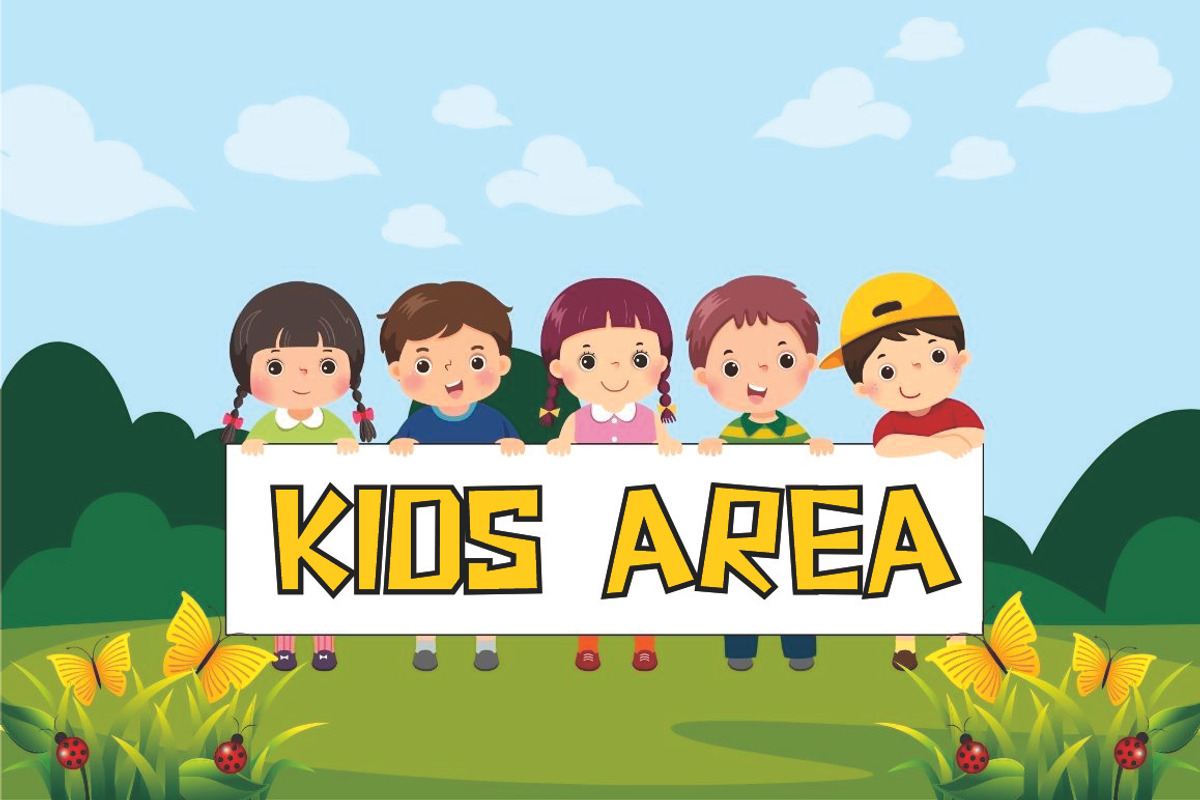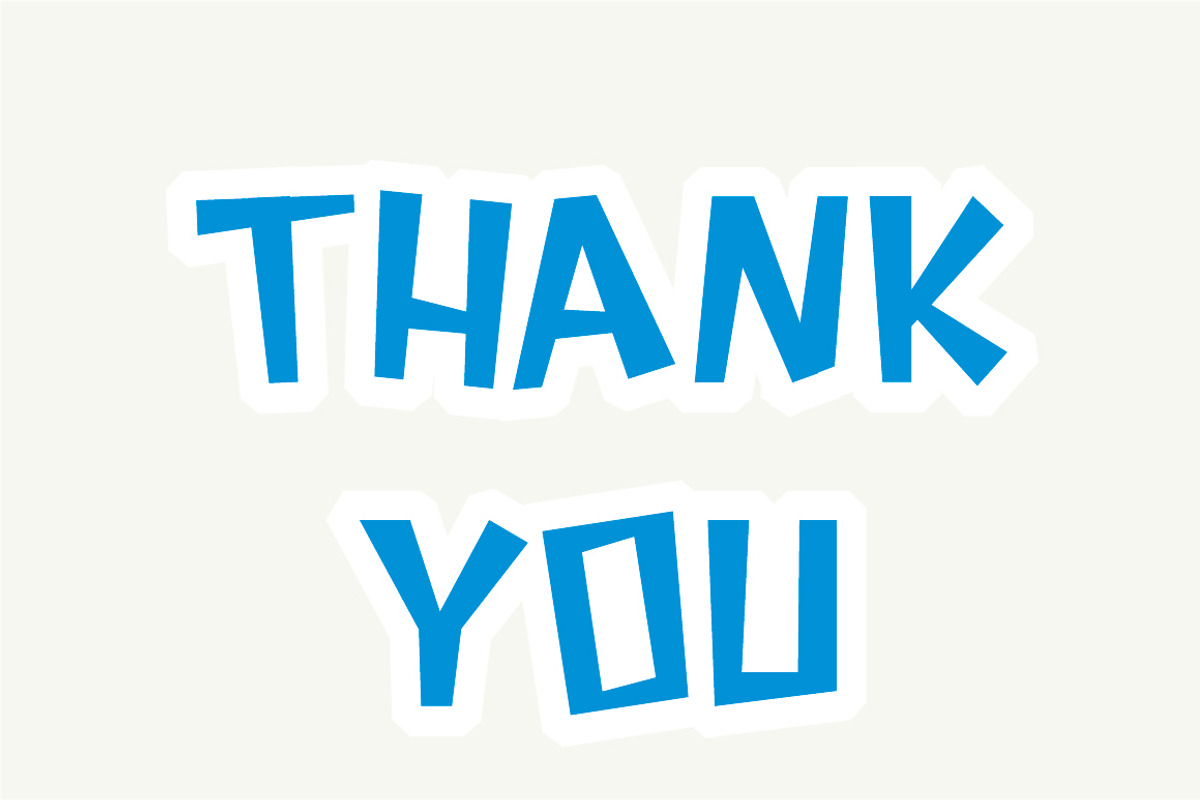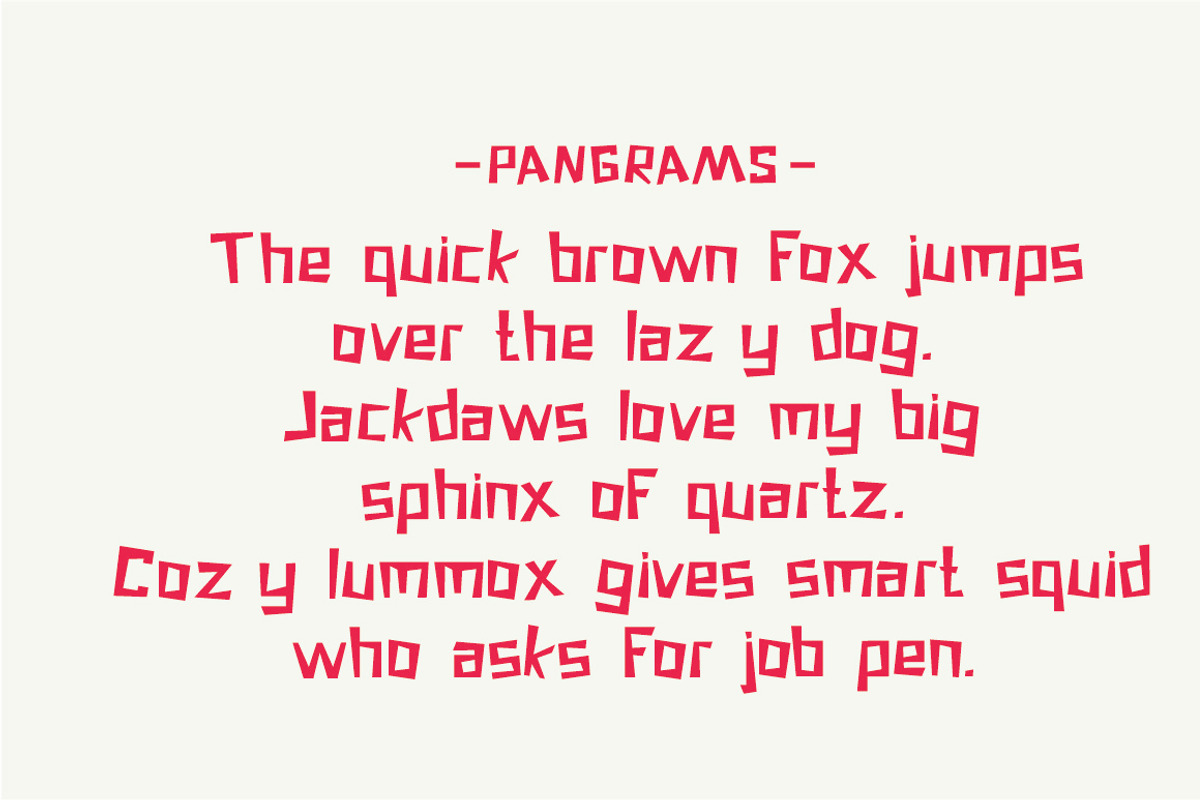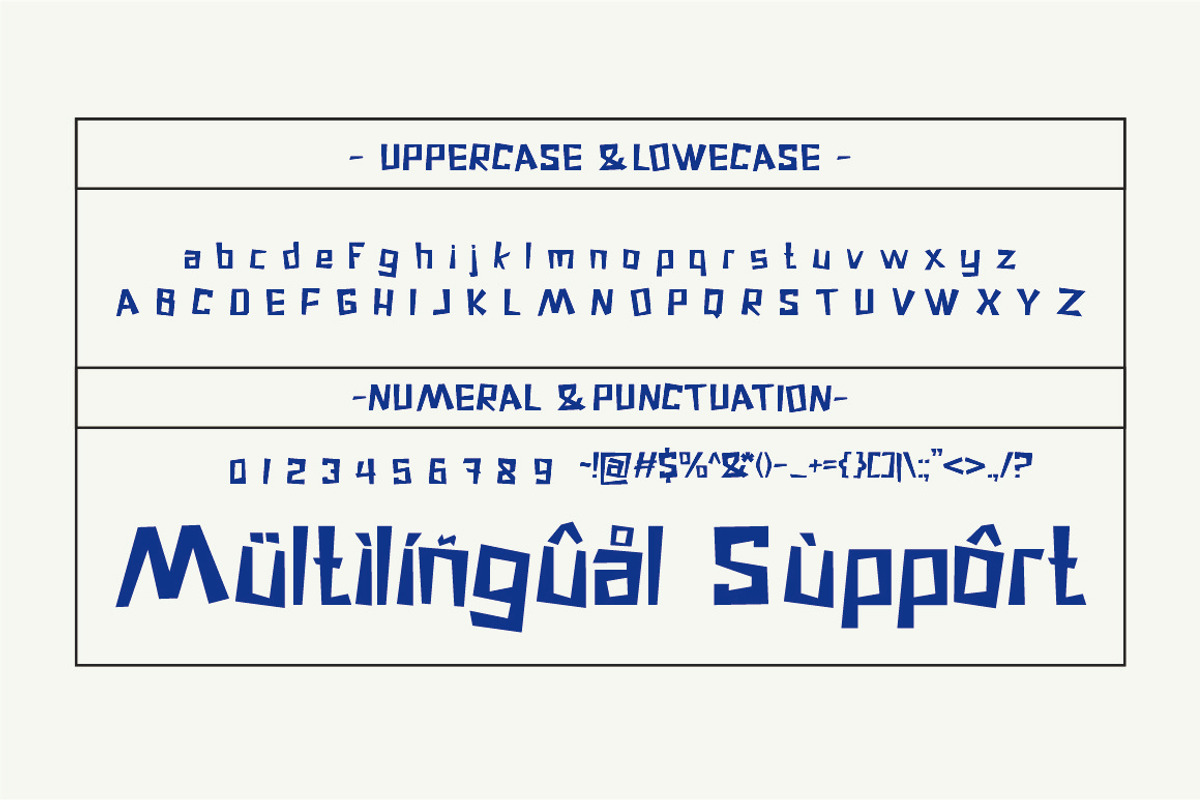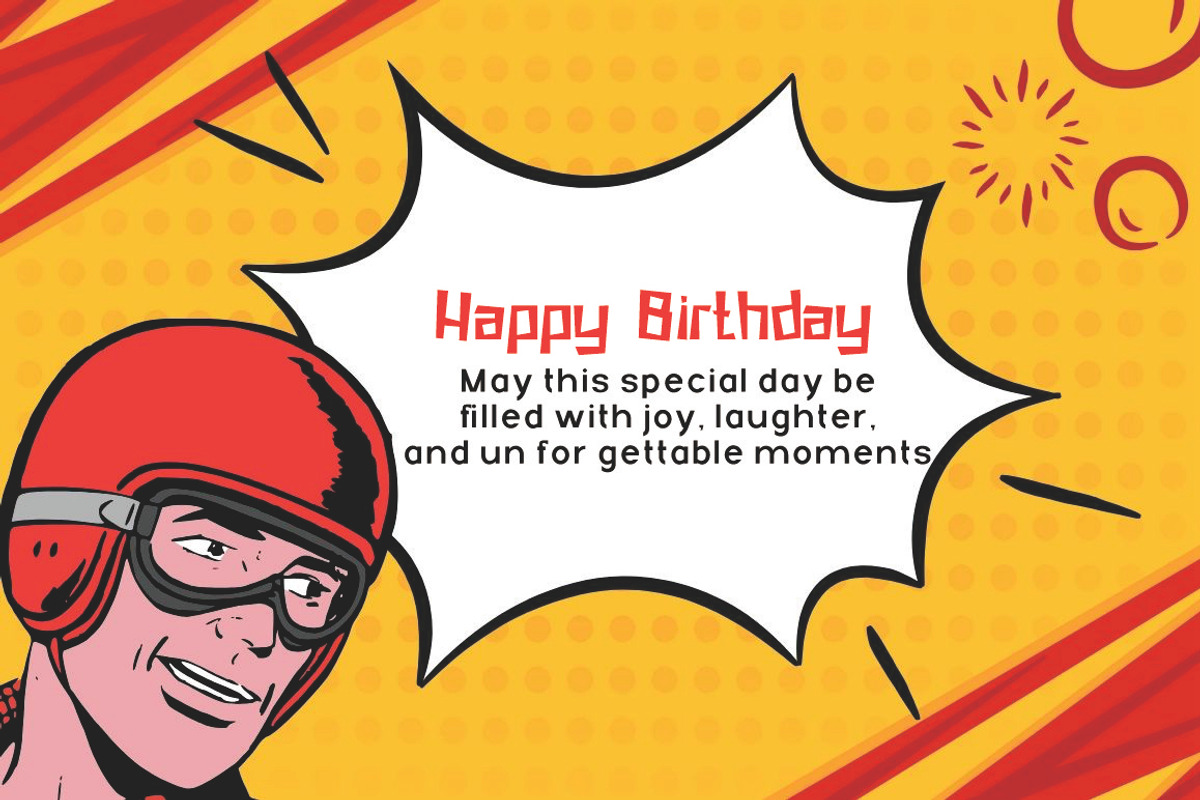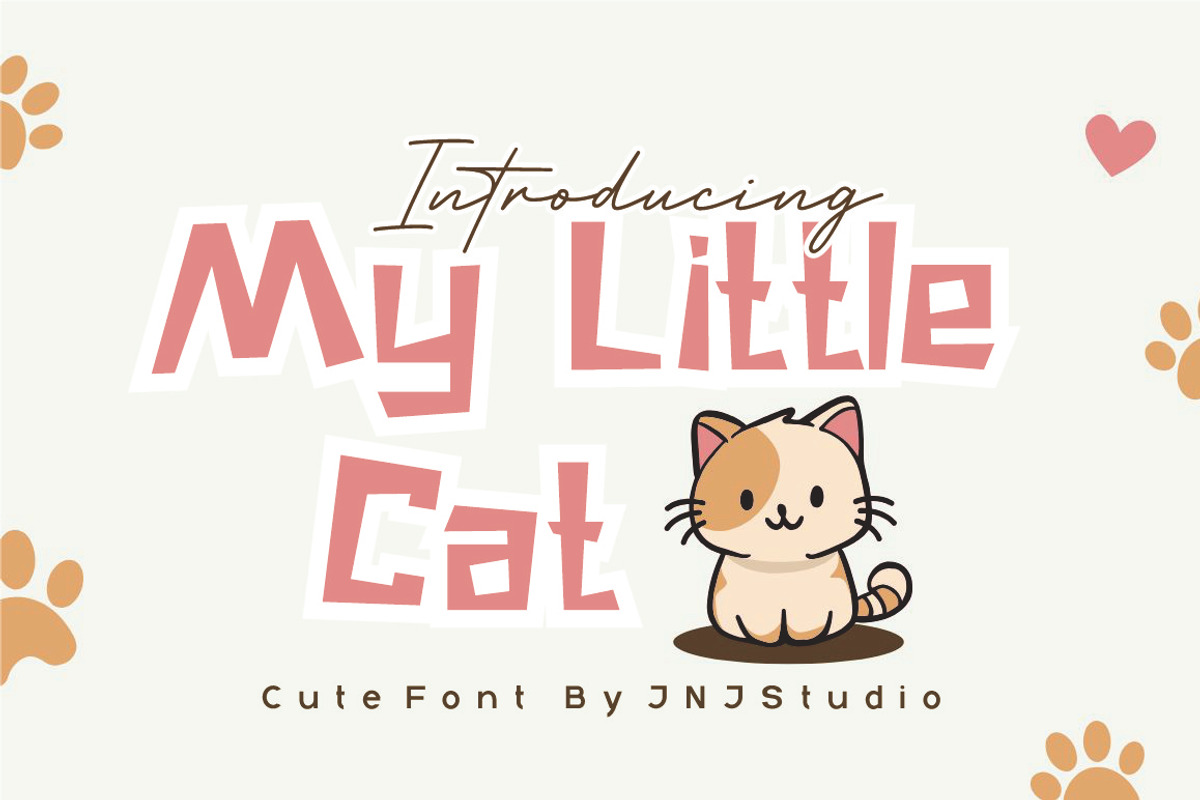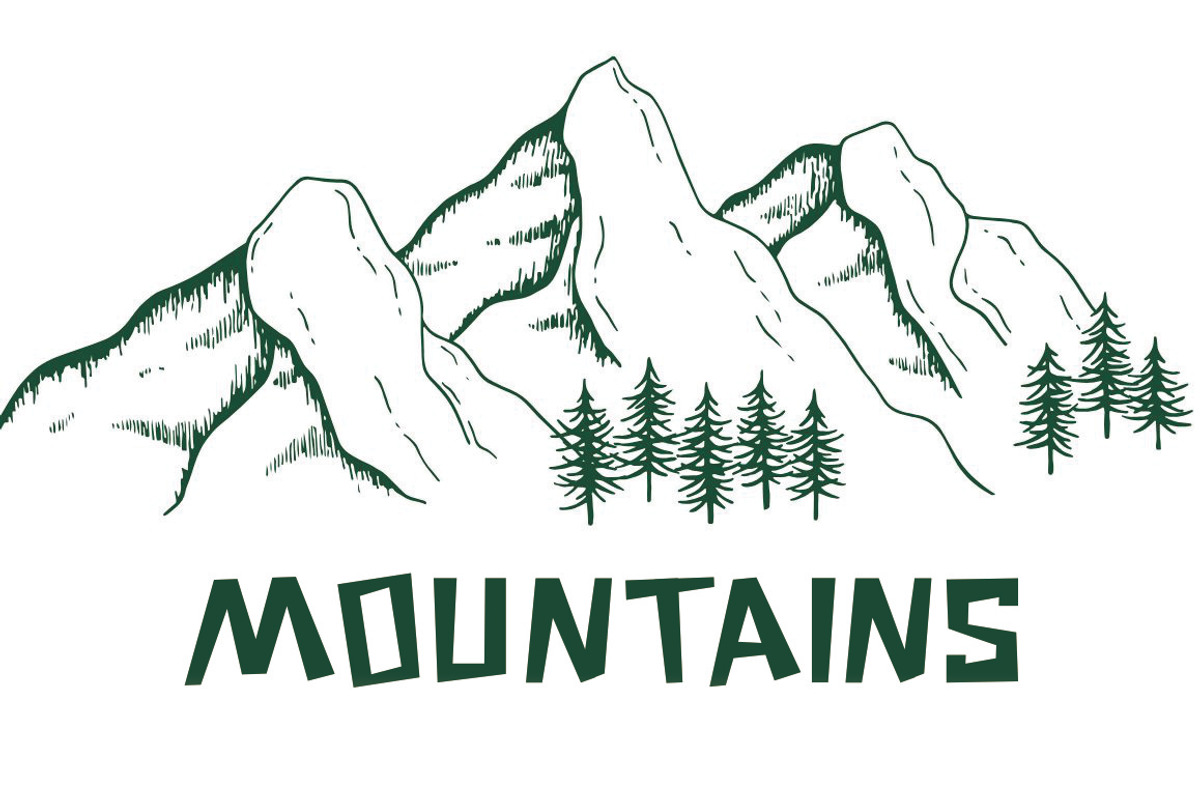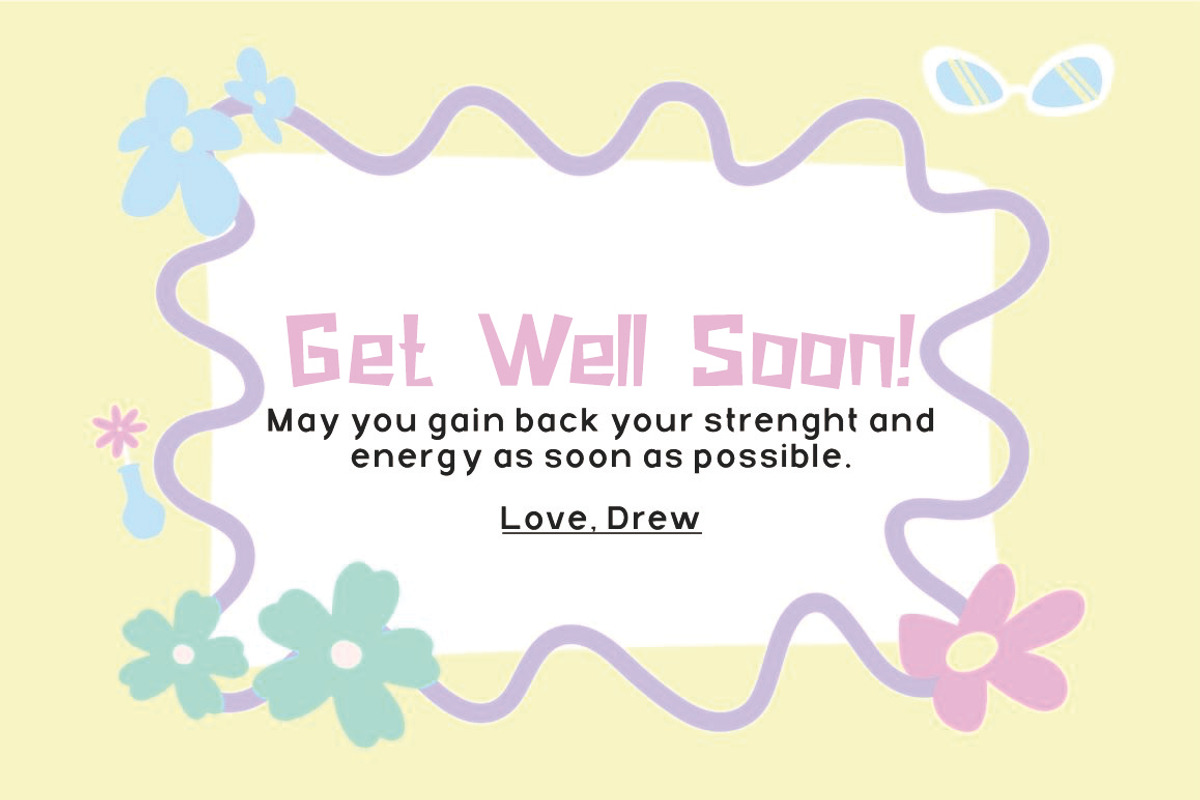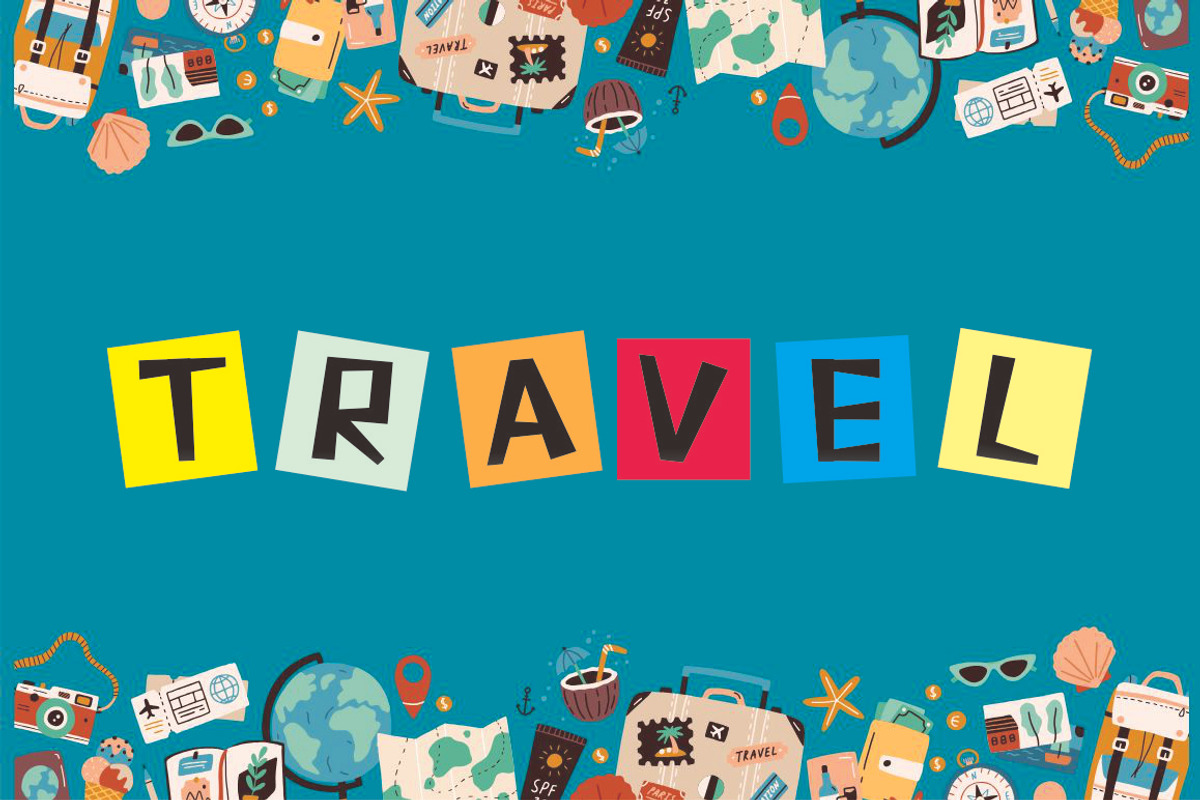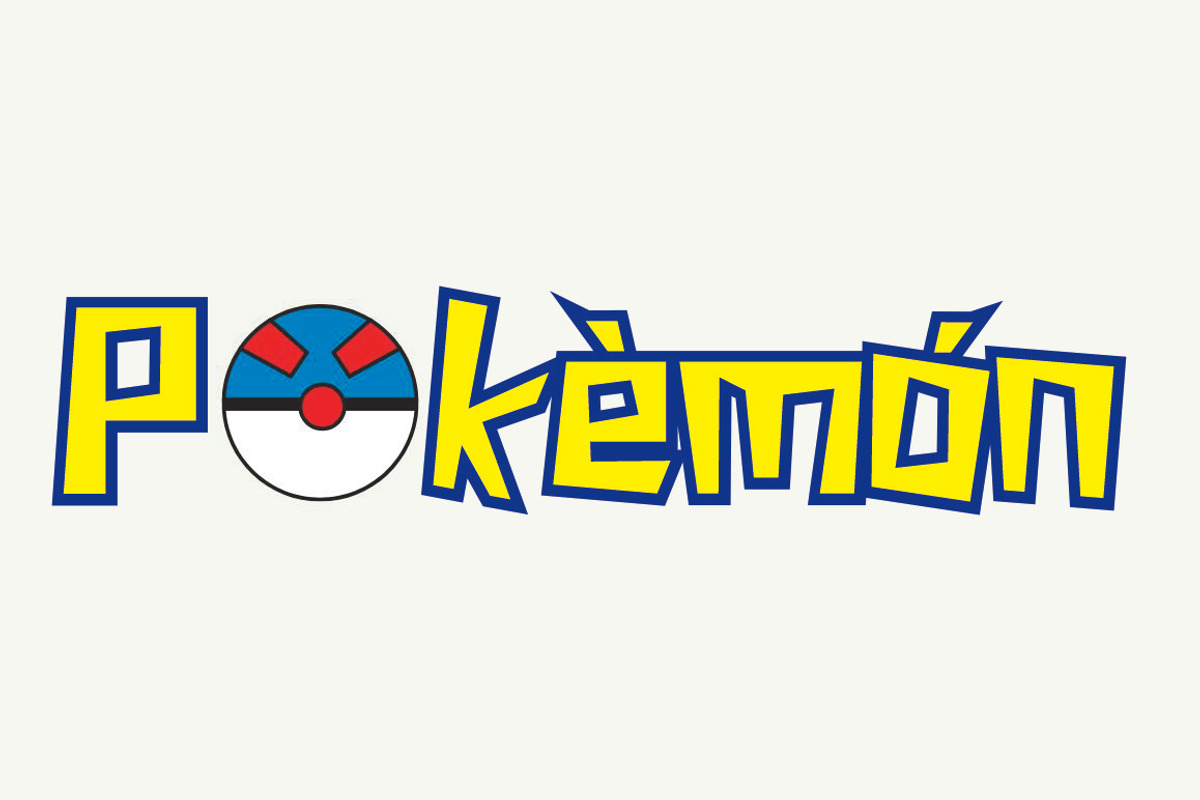
My Little Cat
Introducing "My Little Cat" is a charming handwritten font that captures the warmth and spontaneity of a handwritten note. With soft curves, slightly uneven strokes, and a playful rhythm, this font evokes the cozy feeling of a lazy afternoon with your favorite feline companion. Its light-hearted and whimsical design makes it perfect for personal projects, greeting cards, children’s books, social media posts, and branding that seeks a touch of personality and friendliness.
Whether you're writing a heartfelt message or designing a playful logo, "My Little Cat" brings a sense of authenticity and warmth to every word.